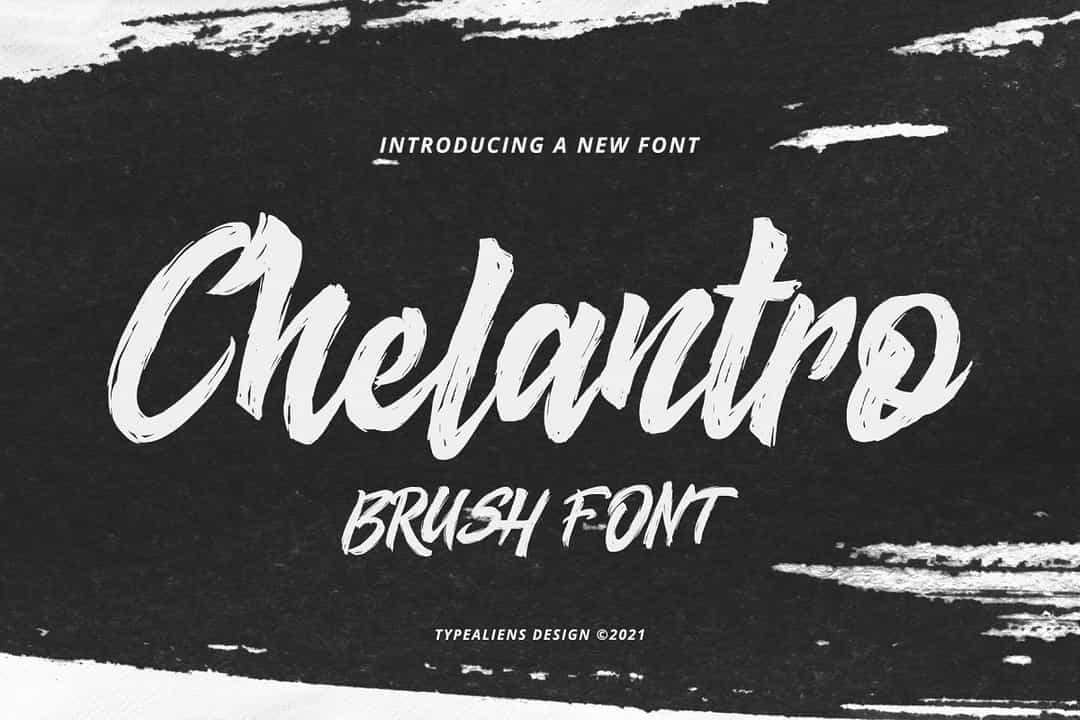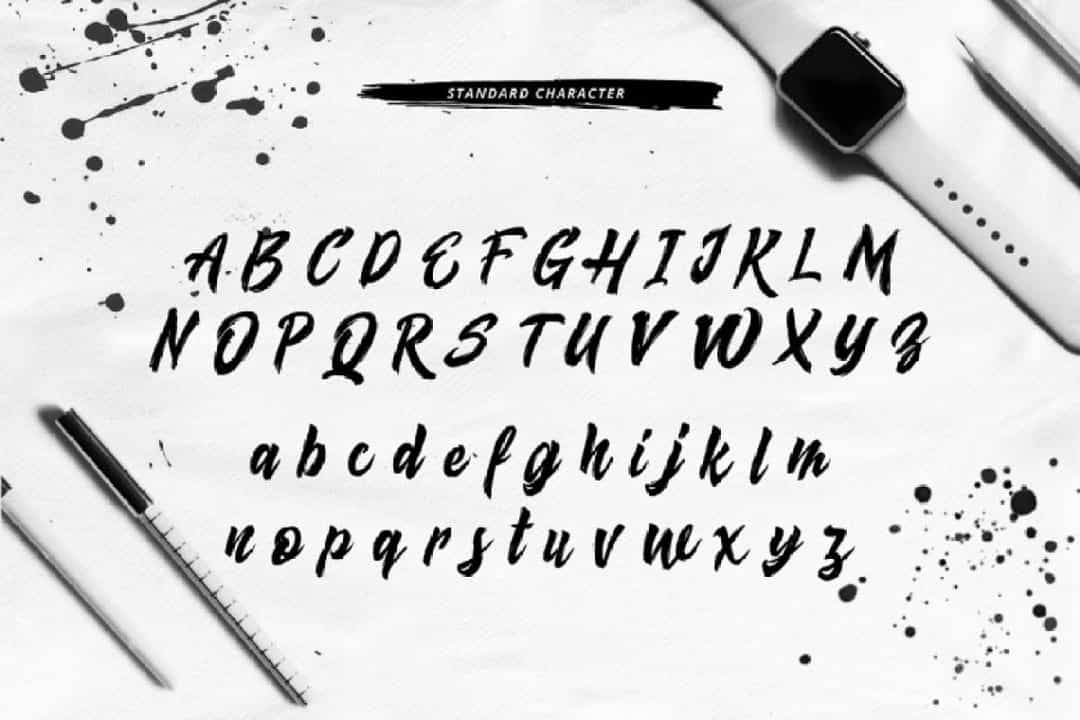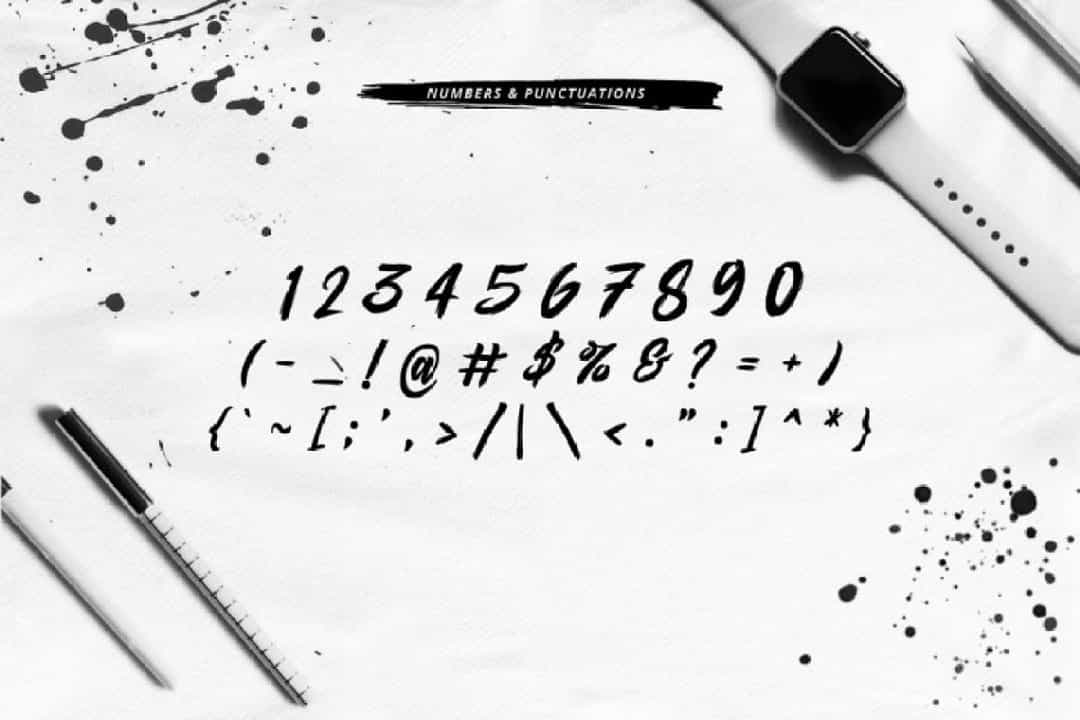
Chelantro is an authentic, bold and real brush script typeface with an eye-catching appearance that stands out. Use it in any of your creative projects and see it shine!